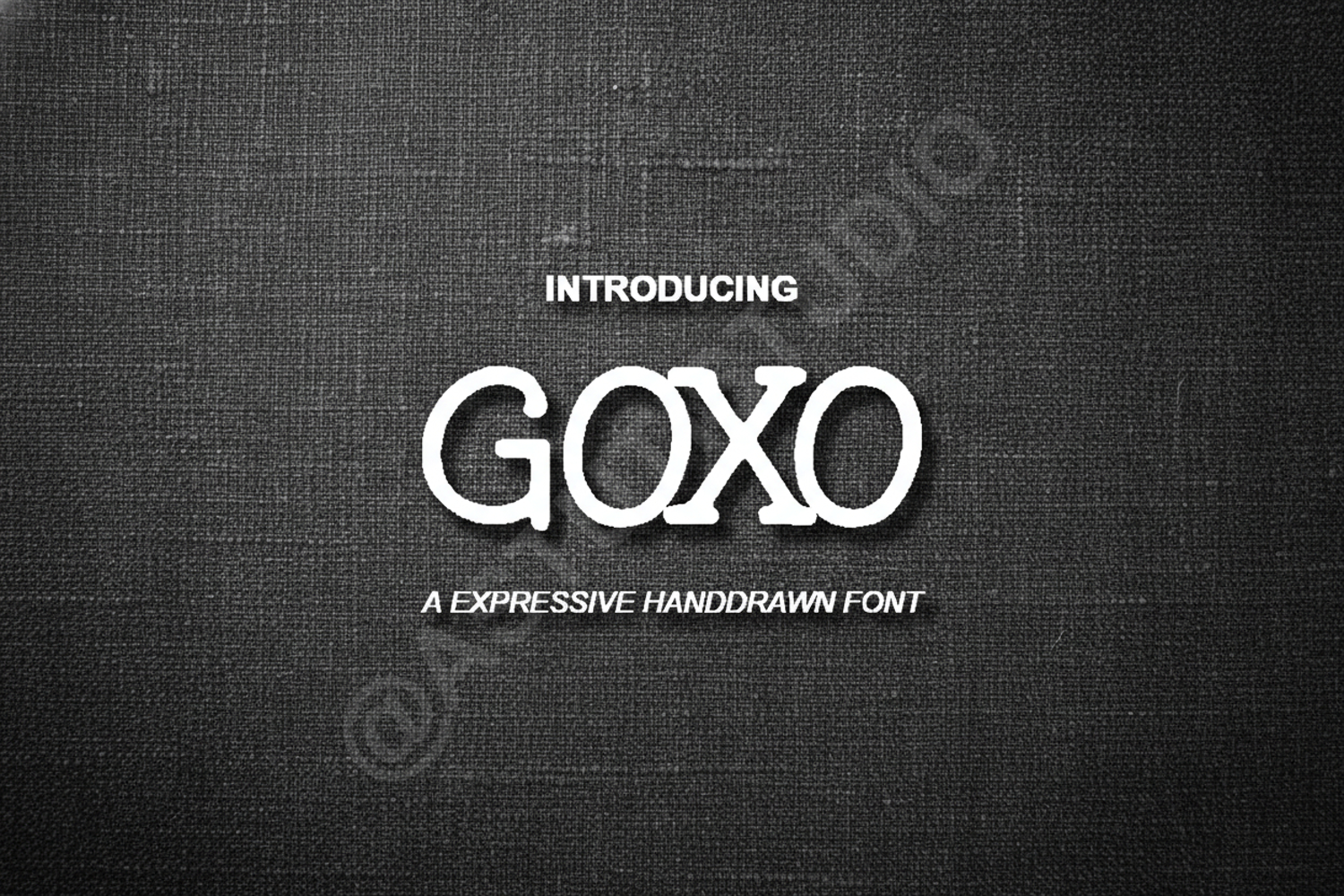
Goxo - Modern Geometric Sans Serif Font
Goxo
Goxo is a meticulously crafted geometric sans serif font that balances modern aesthetics with timeless readability. Designed for creators who demand precision and versatility, Goxo offers clean lines and a contemporary feel that elevates any creative project. Whether you are building a brand identity from scratch or designing a sleek, high-end website, Goxo provides the professional edge required for premium results.
- Complete set of uppercase and lowercase characters
- Numbers, punctuation, and multilingual support
- Branding and Logo Design: Create a memorable and distinct identity with clean, modern letterforms.
- Editorial Layouts: Perfect for high-end magazines, brochures, and digital lookbooks.
- Social Media Graphics: Stand out on Instagram, Pinterest, and LinkedIn with bold, clear typography.
- Wedding Stationery: Modernize invitations and menus with a sophisticated and minimalist touch.
- Web and App UI: Ensure a seamless user experience with characters designed for maximum legibility.